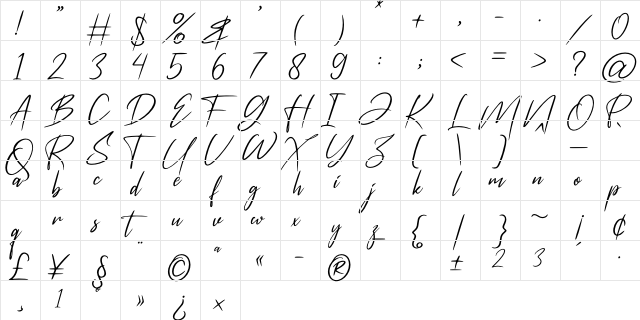
Rossatelly Regular
| Designer | Muhammad Farhan Sholeh Ramadhika |
Design Context for Rossatelly Typeface
Rossatelly is a composed and adaptable typeface that performs quietly and consistently across a wide range of design contexts.